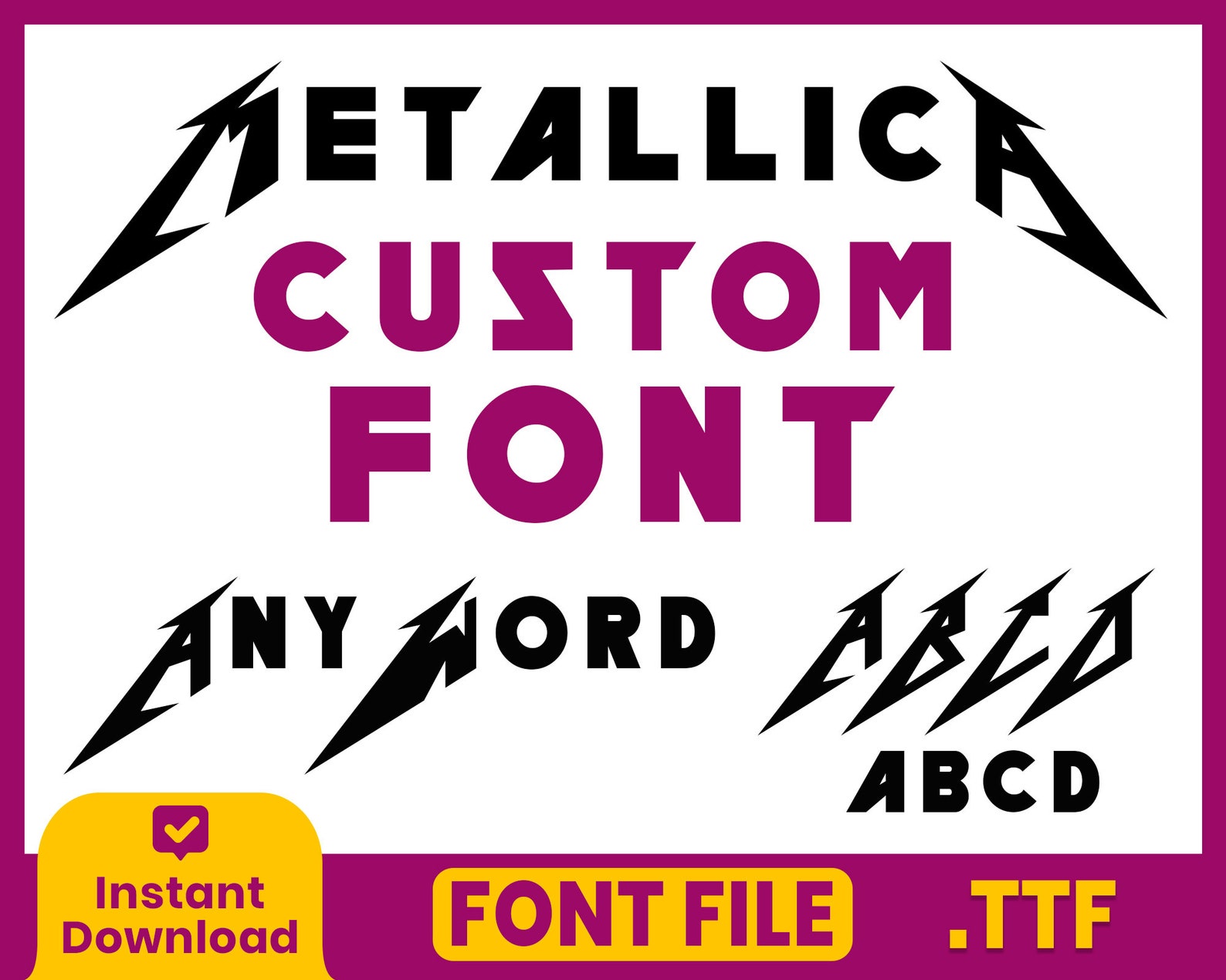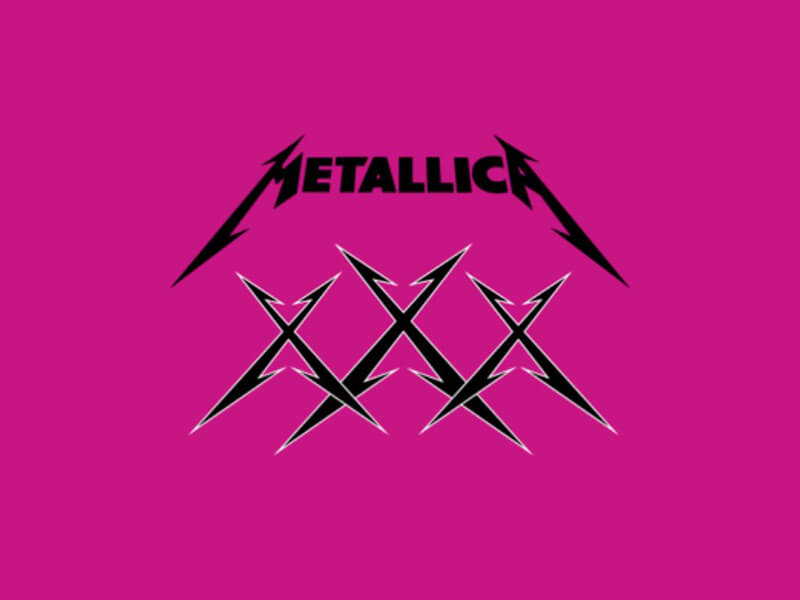
Metallica Logo Font
Metallica Logo Font - Click to find the best 17 free fonts in the metallica style. Web this band was founded by james hetfield, an american musician and composer, and lars ulrich, the band’s. Web looking for metallica fonts? “pastor of muppets” is the font used in the metallica logo. Web what font was used in metallica logo? The metallica font is the font used in the metallica logo. Every font is free to download! It is a strong, bold typeface that takes.
The metallica font is the font used in the metallica logo. It is a strong, bold typeface that takes. Web what font was used in metallica logo? Click to find the best 17 free fonts in the metallica style. Web looking for metallica fonts? Web this band was founded by james hetfield, an american musician and composer, and lars ulrich, the band’s. Every font is free to download! “pastor of muppets” is the font used in the metallica logo.
It is a strong, bold typeface that takes. Web this band was founded by james hetfield, an american musician and composer, and lars ulrich, the band’s. Web what font was used in metallica logo? “pastor of muppets” is the font used in the metallica logo. Click to find the best 17 free fonts in the metallica style. Web looking for metallica fonts? Every font is free to download! The metallica font is the font used in the metallica logo.
It is a strong, bold typeface that takes. Web this band was founded by james hetfield, an american musician and composer, and lars ulrich, the band’s. “pastor of muppets” is the font used in the metallica logo. Web what font was used in metallica logo? Web looking for metallica fonts?
Every font is free to download! The metallica font is the font used in the metallica logo. It is a strong, bold typeface that takes. Web what font was used in metallica logo? Click to find the best 17 free fonts in the metallica style.
Web looking for metallica fonts? Web what font was used in metallica logo? Click to find the best 17 free fonts in the metallica style. “pastor of muppets” is the font used in the metallica logo. Web this band was founded by james hetfield, an american musician and composer, and lars ulrich, the band’s.
Web this band was founded by james hetfield, an american musician and composer, and lars ulrich, the band’s. “pastor of muppets” is the font used in the metallica logo. Web looking for metallica fonts? Click to find the best 17 free fonts in the metallica style. Every font is free to download!
Click to find the best 17 free fonts in the metallica style. Every font is free to download! Web looking for metallica fonts? Web what font was used in metallica logo? The metallica font is the font used in the metallica logo.
Web looking for metallica fonts? Every font is free to download! Click to find the best 17 free fonts in the metallica style. Web this band was founded by james hetfield, an american musician and composer, and lars ulrich, the band’s. Web what font was used in metallica logo?
Web this band was founded by james hetfield, an american musician and composer, and lars ulrich, the band’s. It is a strong, bold typeface that takes. Web what font was used in metallica logo? “pastor of muppets” is the font used in the metallica logo. Web looking for metallica fonts?
Web looking for metallica fonts? It is a strong, bold typeface that takes. Click to find the best 17 free fonts in the metallica style. Every font is free to download! Web this band was founded by james hetfield, an american musician and composer, and lars ulrich, the band’s.
It is a strong, bold typeface that takes. Web this band was founded by james hetfield, an american musician and composer, and lars ulrich, the band’s. Web what font was used in metallica logo? Click to find the best 17 free fonts in the metallica style. The metallica font is the font used in the metallica logo.
Web What Font Was Used In Metallica Logo?
Every font is free to download! Web looking for metallica fonts? Click to find the best 17 free fonts in the metallica style. “pastor of muppets” is the font used in the metallica logo.
The Metallica Font Is The Font Used In The Metallica Logo.
It is a strong, bold typeface that takes. Web this band was founded by james hetfield, an american musician and composer, and lars ulrich, the band’s.